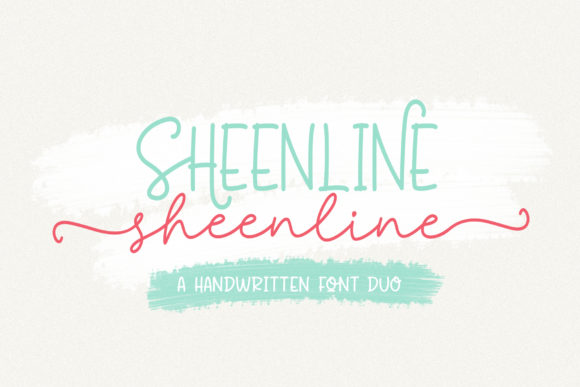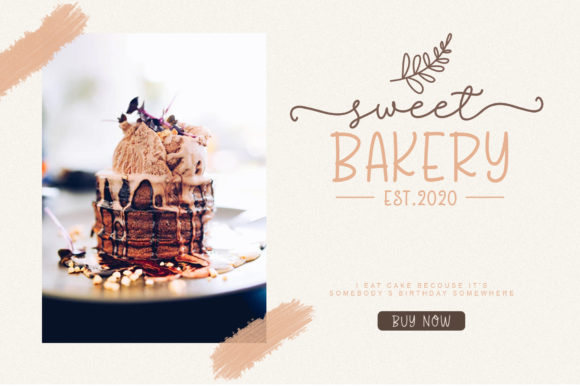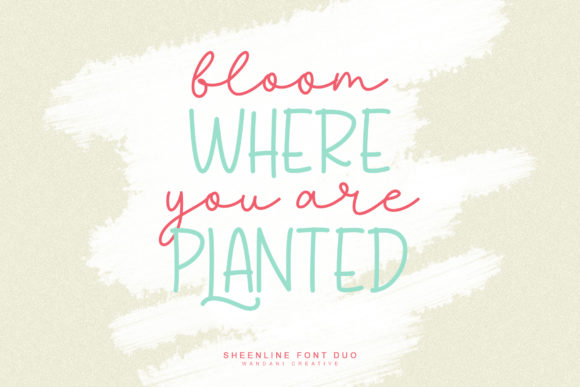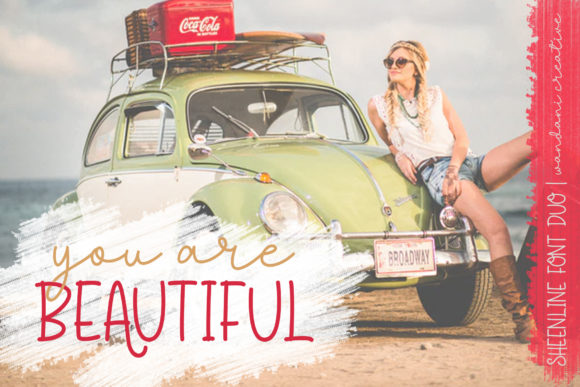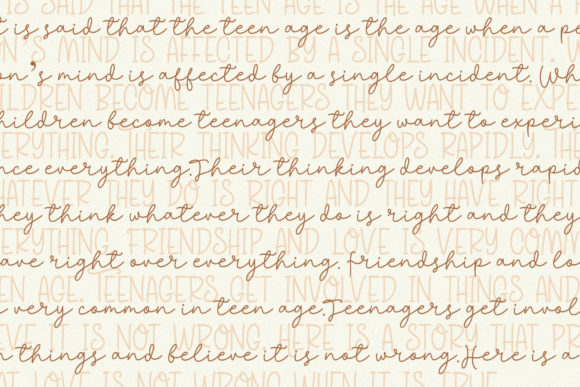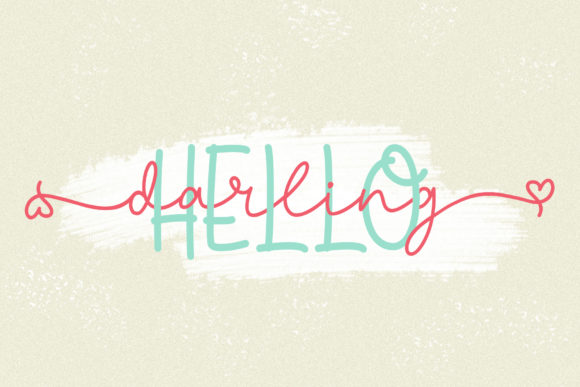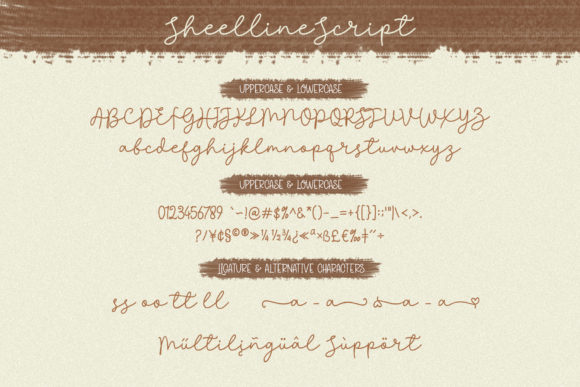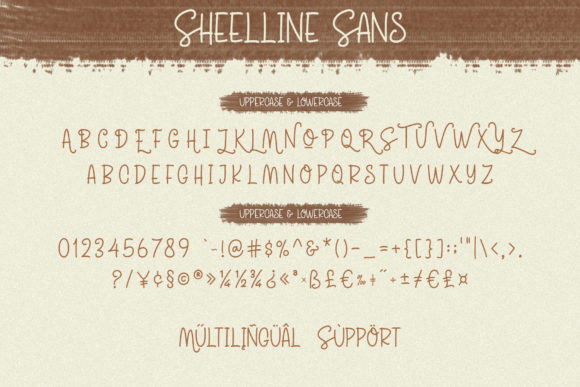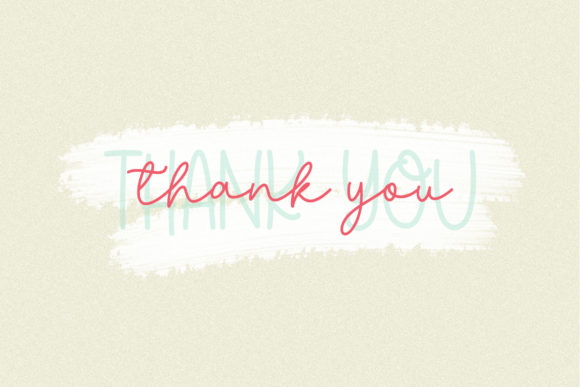
Sheenline is a cute handwritten font duo consisting of two different fonts that coordinate perfectly together! Get inspired by its contemporary coolness.